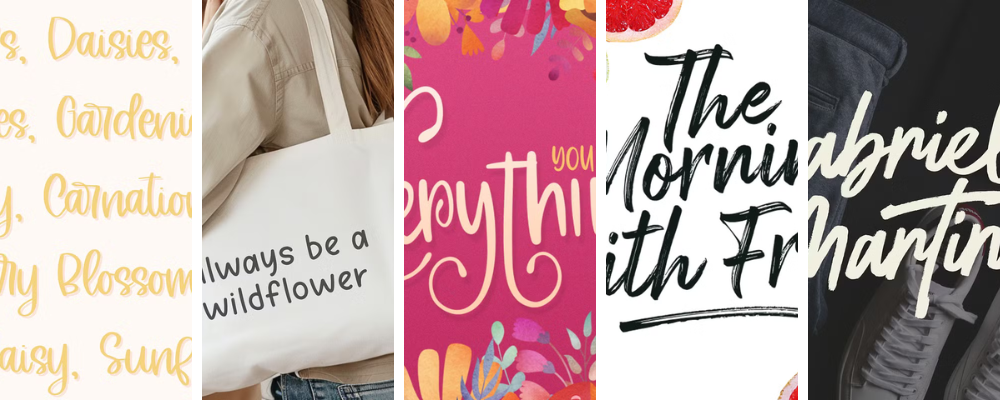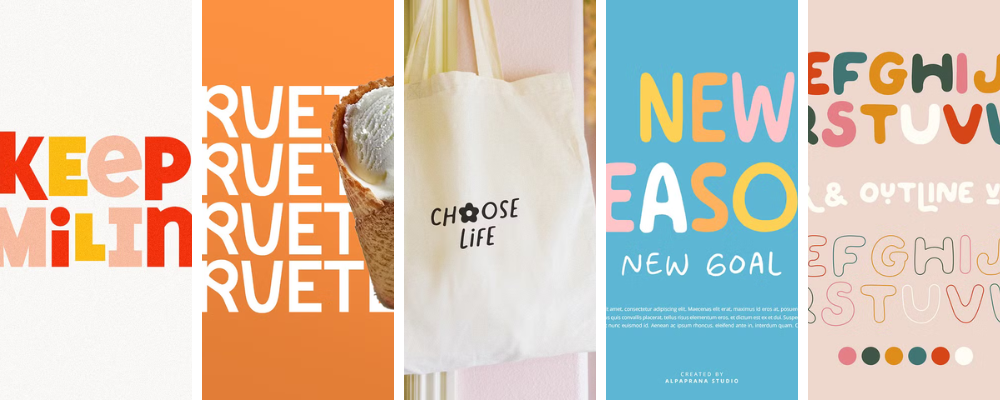
17 Spring Fonts to Brighten Your Designs (And How to Use Them)
Spring brings blooming flowers, warmer days, pastel palettes, and a fresh start for creative projects. Just like the season itself, the right fonts can bring that energy and charm to your designs! From playful handwritten styles to floral display fonts, I’ve rounded up spring fonts that are perfect for seasonal branding, social media graphics, products, invitations, and much more.
Refresh your designs this season with 17 spring fonts full of florals, whimsy, and freshness. From script to decorative typefaces, find perfect picks for spring branding, Easter projects, social media, logos, and more.
Blooms & Brush Scripts
These fonts have a fresh, organic feel with flowy strokes and hints of nature that match spring’s blossoming vibe.
Blooms* – a swirly font that includes both script and san-serif family
Oh Livey* – a brush handwritten font that works well the extra flourishes included
Sunflower Blooms* – another combo font family with both script and straight fonts for the perfect spring vibe
Matty Salde* – easy to read brush font that has a handwritten feel
Rouge + Blush* – like the name, a little rouge in it’s styling with straight cursive lines and crisp styling
Blooms* – thicker brush font that displays exactly what you are after for your project
Arsilon* – perfect font if you are loving that brush style with a twist
Why these work: modern sans and serif fonts provide balance when paired with decorative scripts, keeping projects grounded but still fresh.
Garden Display Fonts
Bold, decorative, and playful, these fonts wear spring on their shoulders, with flowers, leaves, and whimsical shapes built right into the type.
Songbird Garden* – a playful, rounded handwritten font with a soft, whimsical spring feel
Garden State* – a vintage serif with elegant, garden-inspired charm
Honeysuckle Market* – a cheerful script with sweet, flowing curves and floral character
Herb Garden* – a fresh, friendly font trio with organic shapes and springtime charm
Garden Delight* – a modern retro serif with cheery, garden-inspired personality
Why these work: decorative fonts instantly communicate a theme and mood, making them ideal for seasonal marketing or designs that need a spring boost.
Quirky & Playful Picks
For designs that lean fun, whimsical, or kid-friendly, these fonts bring a smile and a sense of play.
Quirky Spring* – a playful, energetic font family with fun, bouncy letterforms perfect for spring-themed designs
Blooming Mood* – a cute, bubbly font with soft curves and cheerful spring vibes
Mochi* – a quirky sans with fun, rounded shapes and playful spring energy
Sakarine* – a clean sans serif with soft curves and a fresh, spring-ready look
Blooming Flowers* – a cheerful font duo with floral touches and a light, springtime feel
Why these work: spring is joyful, and playful fonts capture that carefree spirit in projects like party invites, kids’ products, or social posts.
How to Use Spring Fonts in Your Projects
Pairing Fonts
Combine a decorative display or script with a clean sans serif to create hierarchy and balance, especially in branding or print design projects.
Color Choices
Pastels, greens, pinks, and soft yellows amplify the spring feel when paired with these typefaces.
Keep It Seasonal
Use floral or nature-inspired type for Easter materials, garden party invites, spring product launches, social media posts, or fresh seasonal offers.
How Spring Fonts Fit Into Your Brand
Your fonts play a huge role in how your brand feels. Along with your colors and logo, typography helps communicate your personality and set the tone for your entire business.
If your brand is starting to feel a little stale, spring is a great time for a refresh. Even small updates to your fonts can make your website and marketing materials feel brand new.